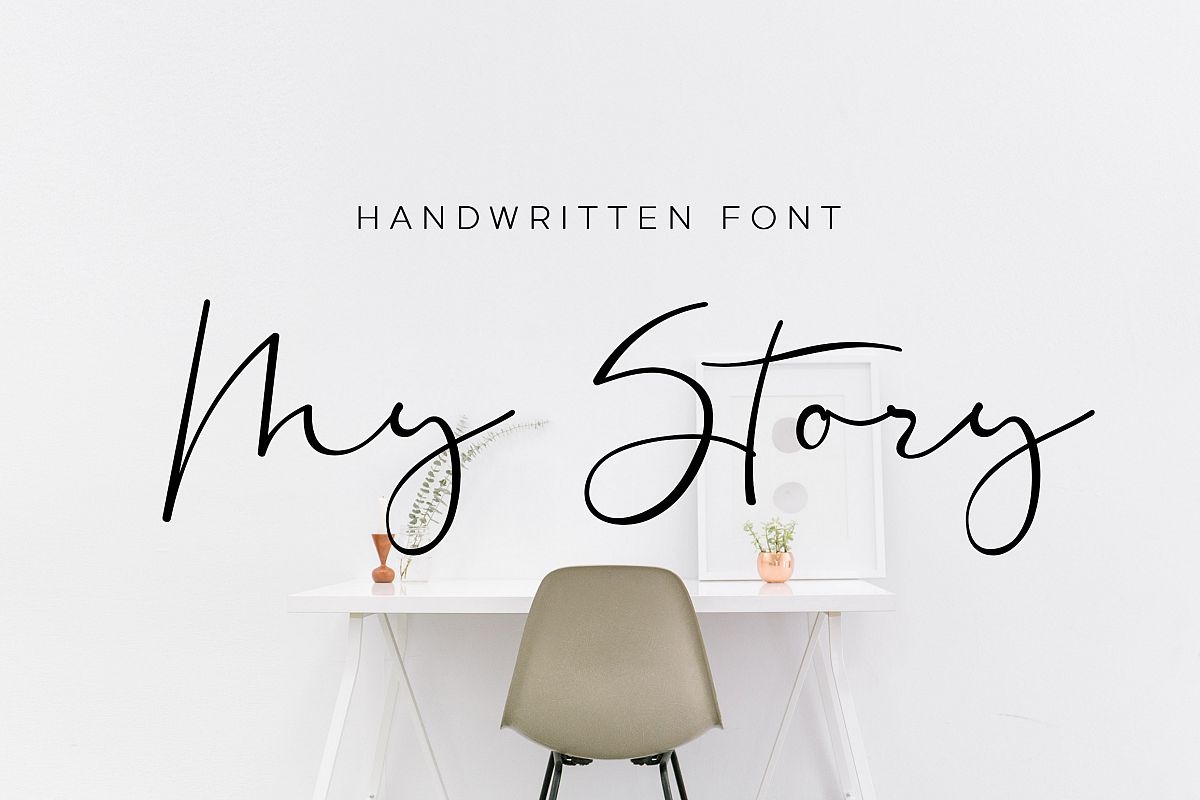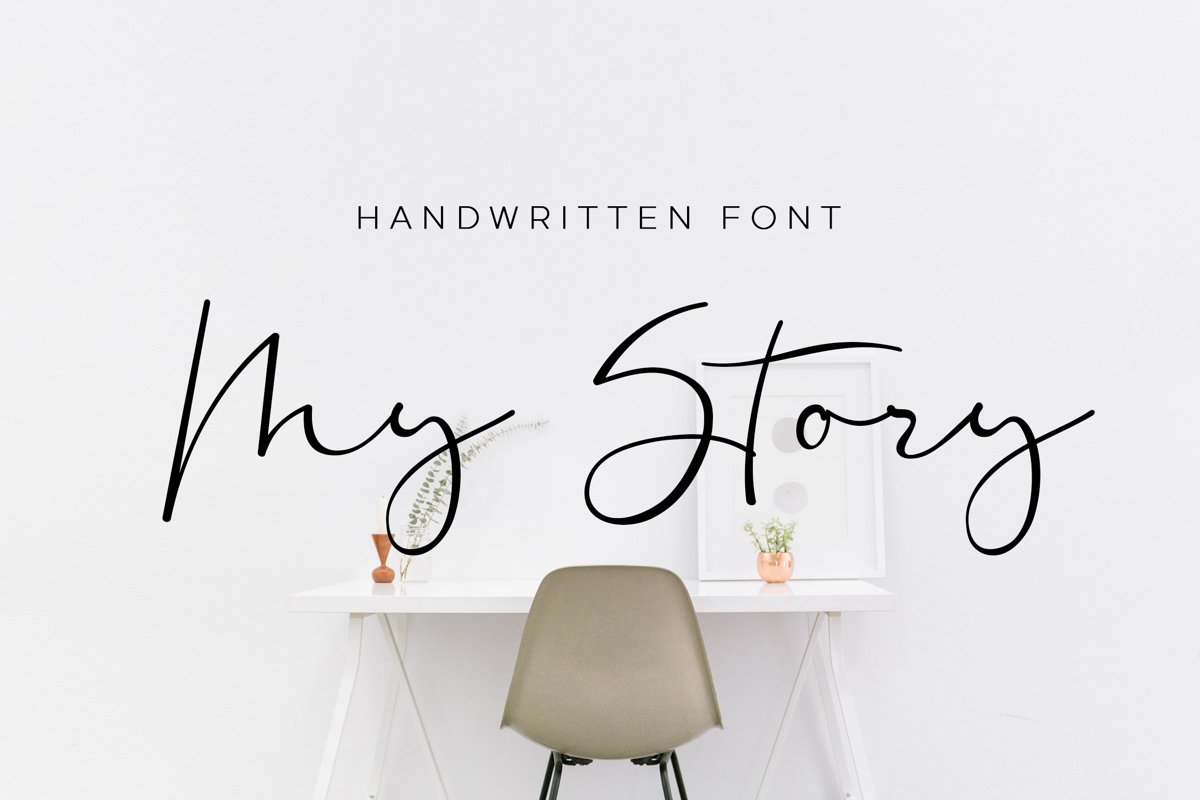
My Story - handwritten calligraphy font
My Story is a elegant handwriting style font. Perfect for branding projects, invitations, logo, greeting cards, product packaging, decorative projects, DIY projects and much more!
It comes with ligatures and multilanguage support.